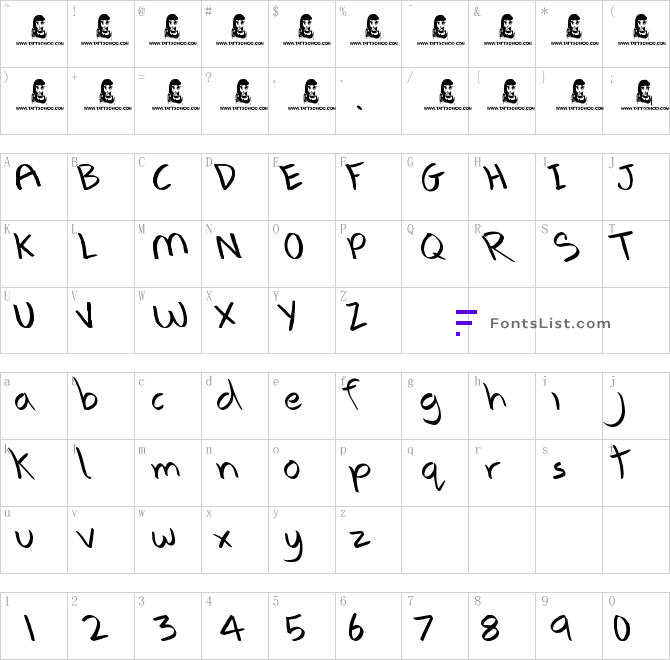
- Font Name:Anxiety Management
Anxiety-Management.ttf is a very beautiful artistic font, Anxiety-Management.ttf is widely used in the design and printing of various books and pictures,Anxiety-Management.ttf has a strong visual impact,Anxiety-Management.ttf is a commonly used font in newspapers, magazines and books, and is used in posters, e-commerce Poster design, store design, logo design, font design and other fields.Anxiety-Management.